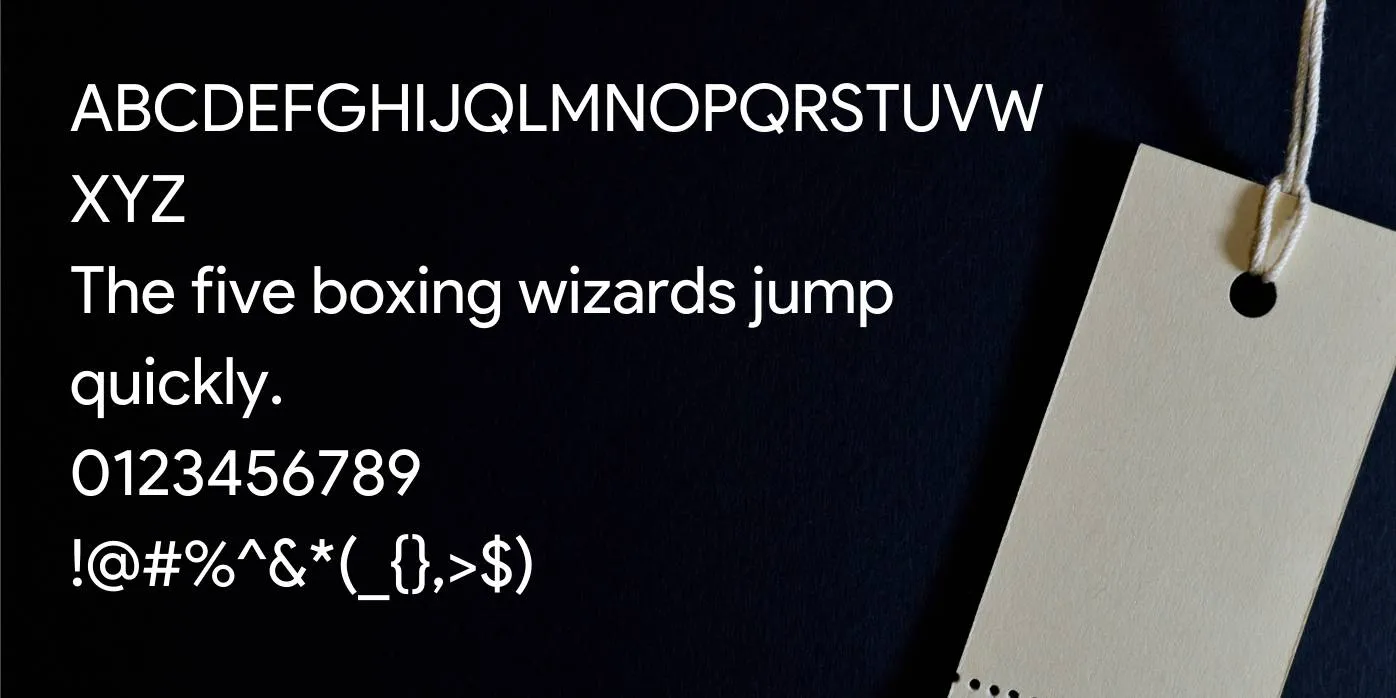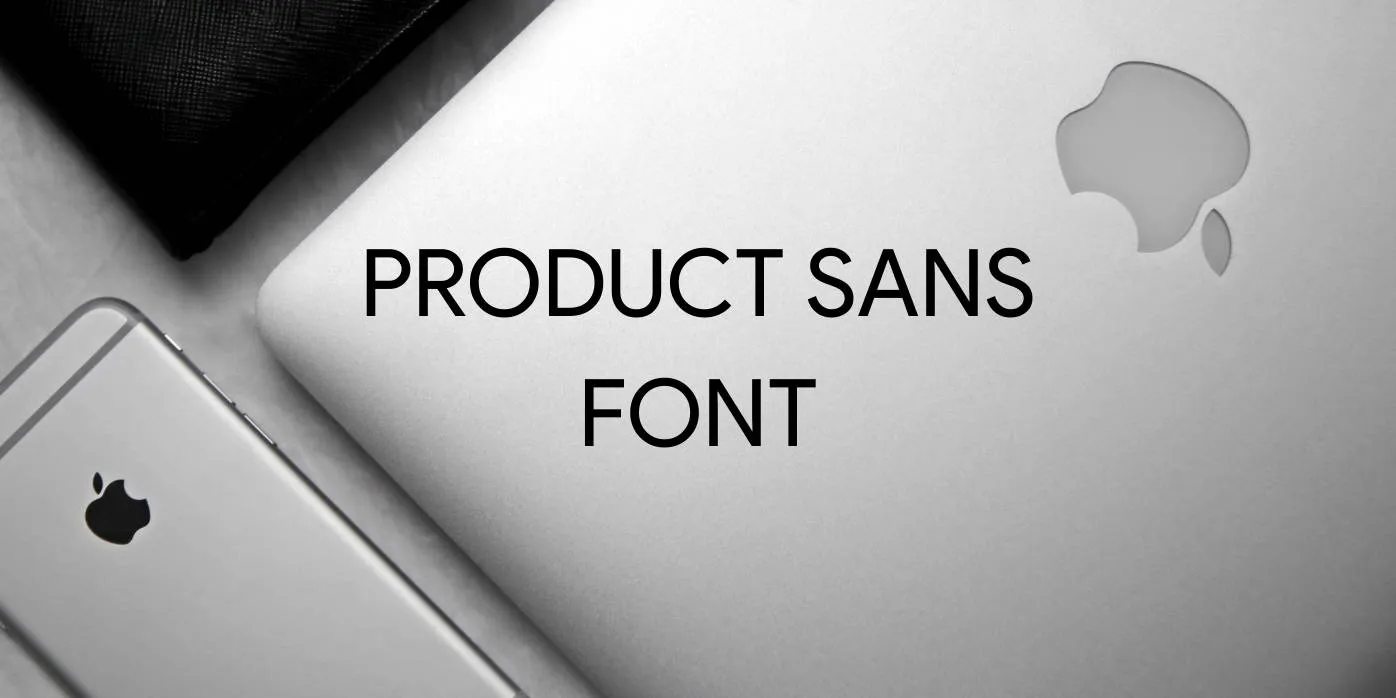
Product Sans Font
Product Sans Font falls under the category of medium fonts. This is part of the CSS family. This is the main of Huawei and also present in google fonts. It is specially designed by Google for its branding purposes, that google has replaced its old logo on the 1st of September 2015.
This font is natural, has curved edges, and is one of the maxima used commercial brand fonts. Specific well-known activities have all used this font as a part of their branding or advertising and advertising campaigns. The font family has True Type features that contain Uppercase and Lowercase Letters, Numbers, and mandatory symbols, etc. The font family has different styles and weights consisting Regular, Bold, Italic and Bold Italic as well.